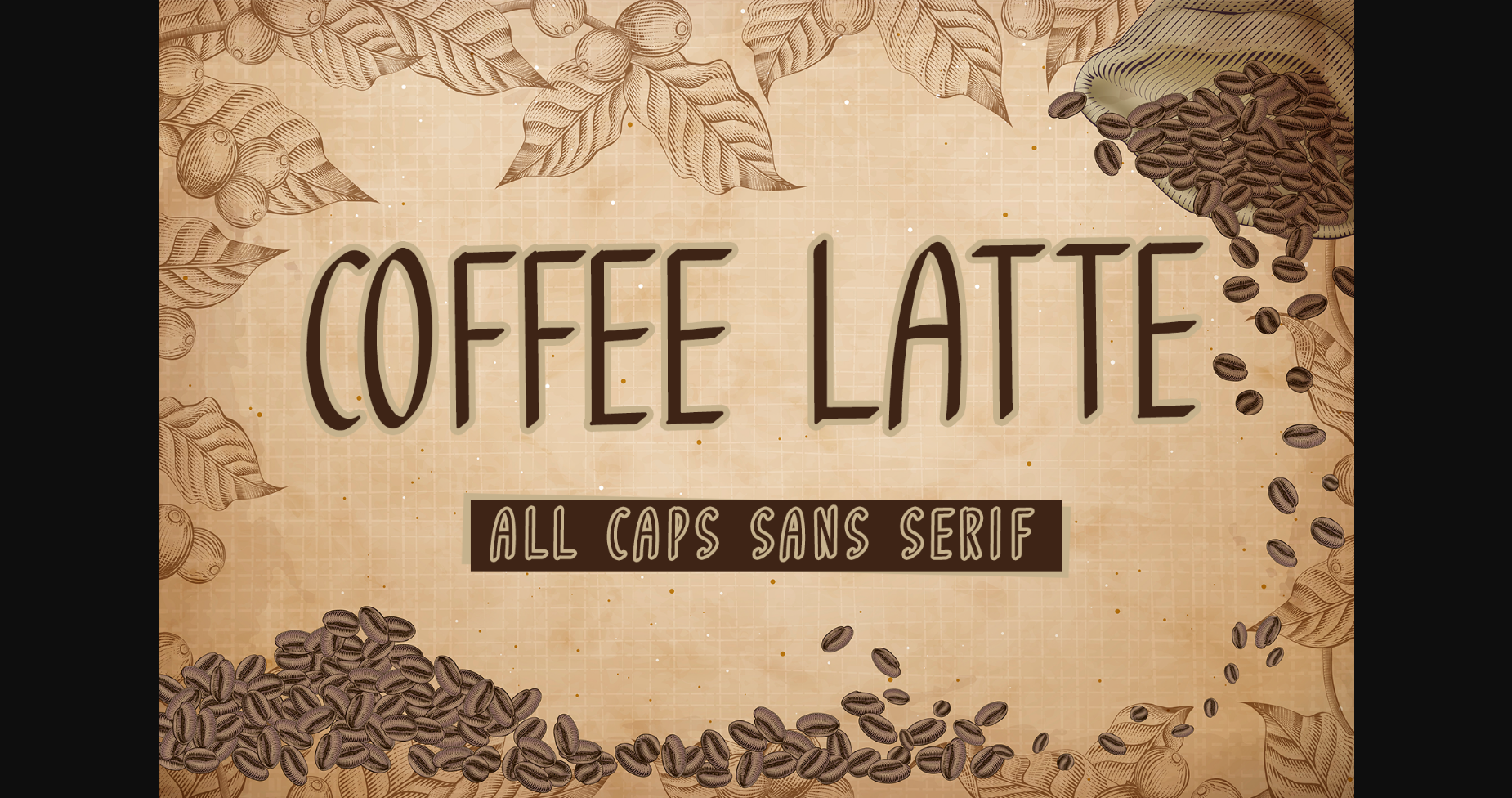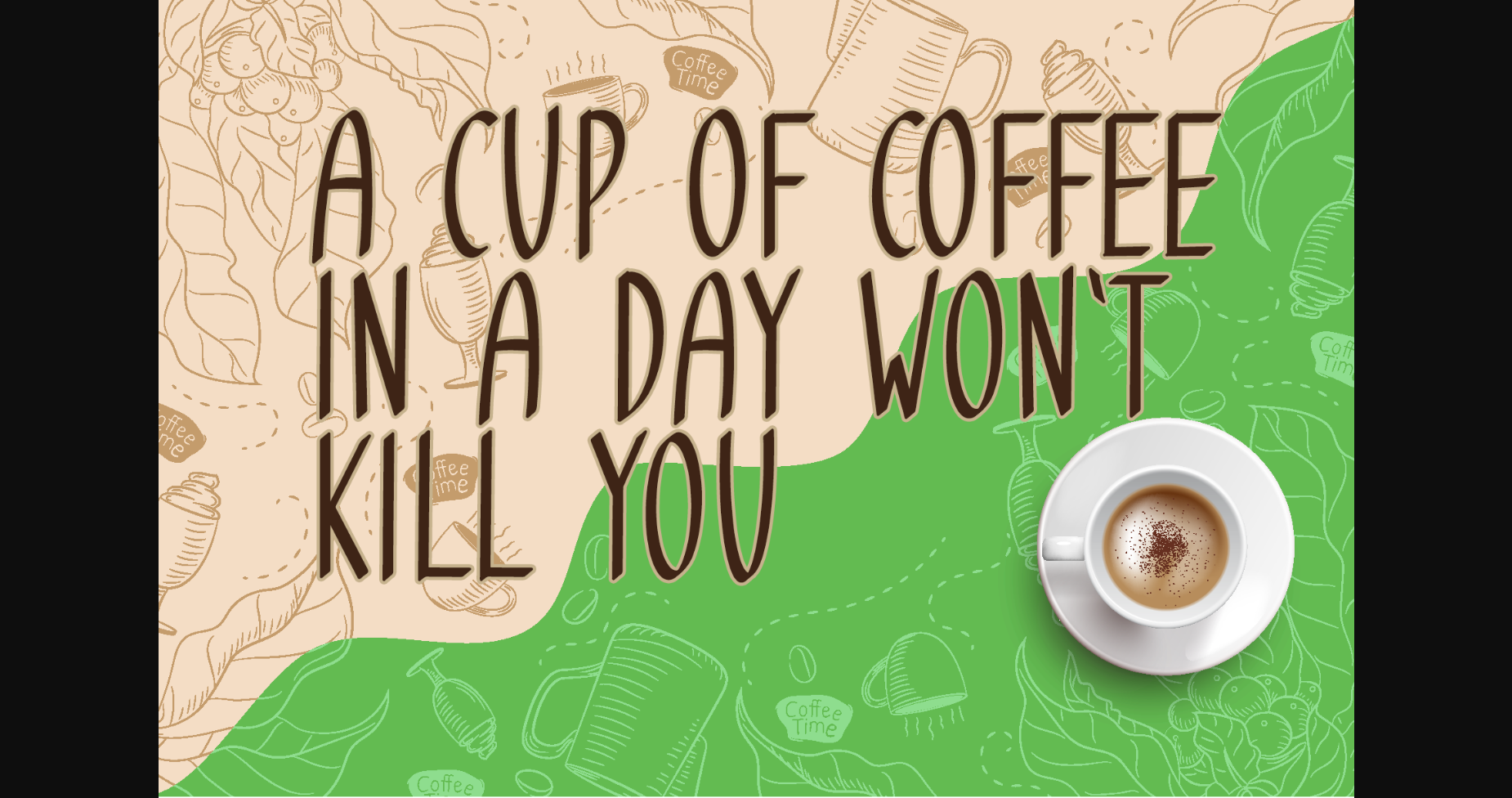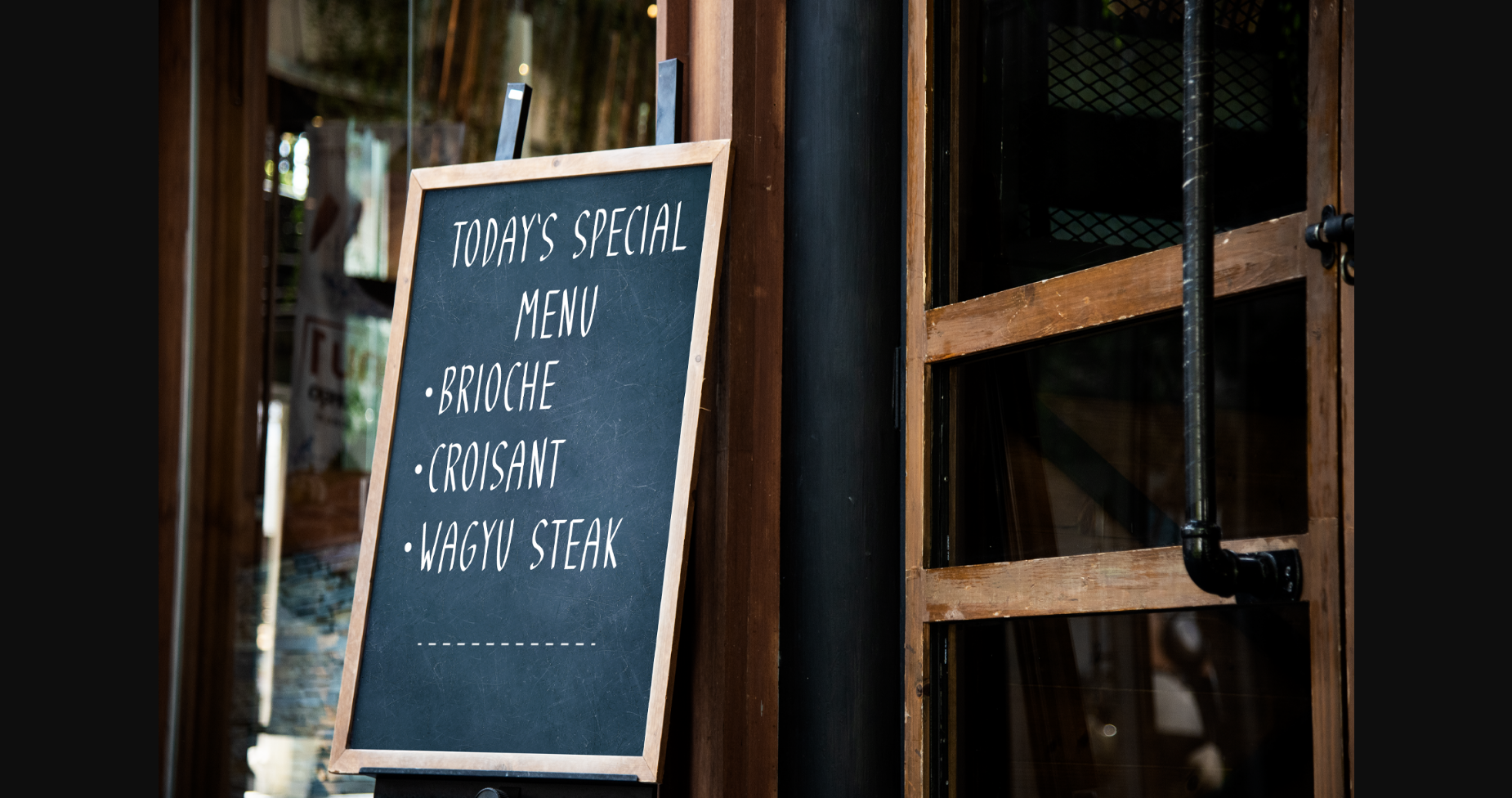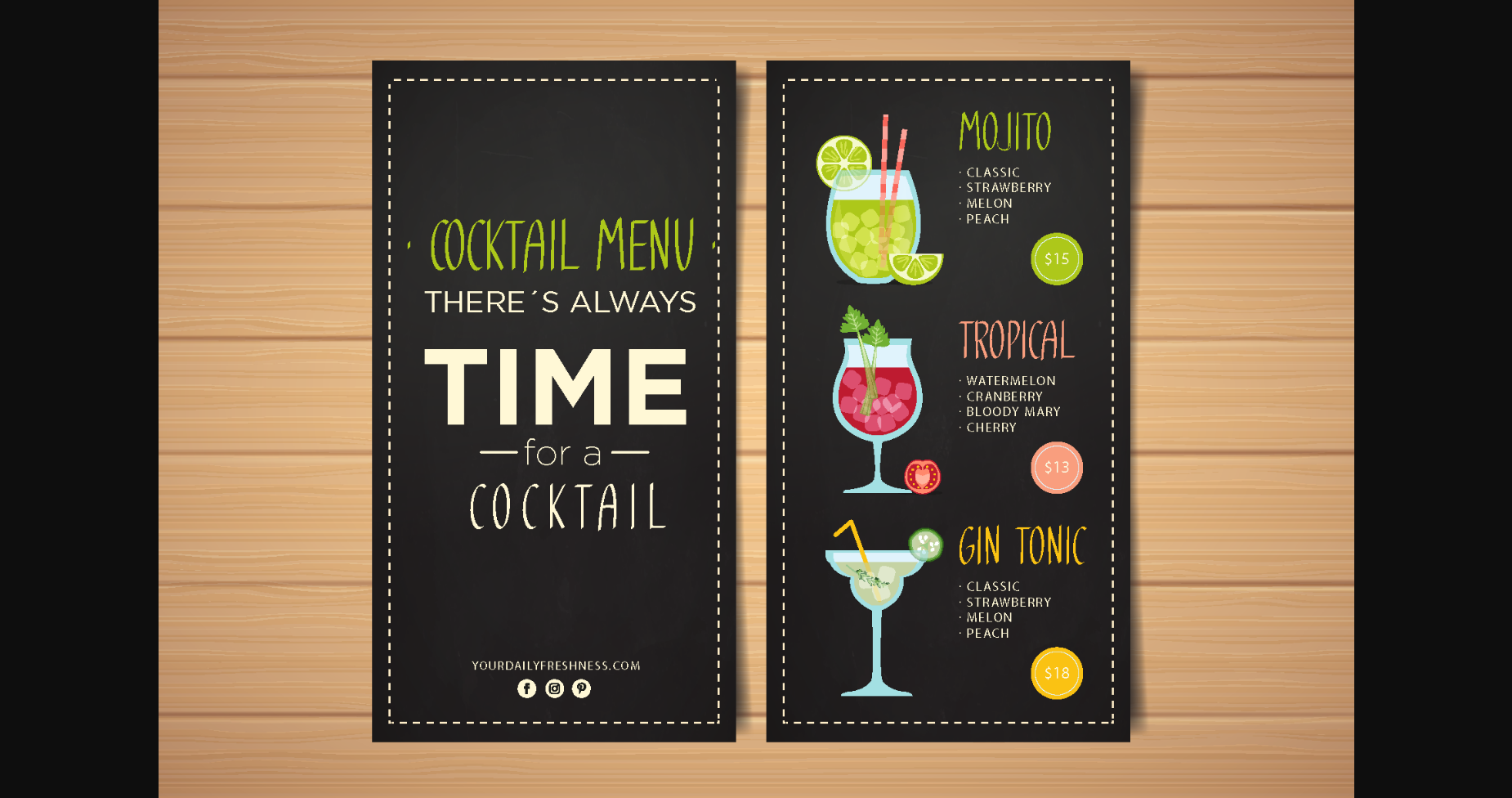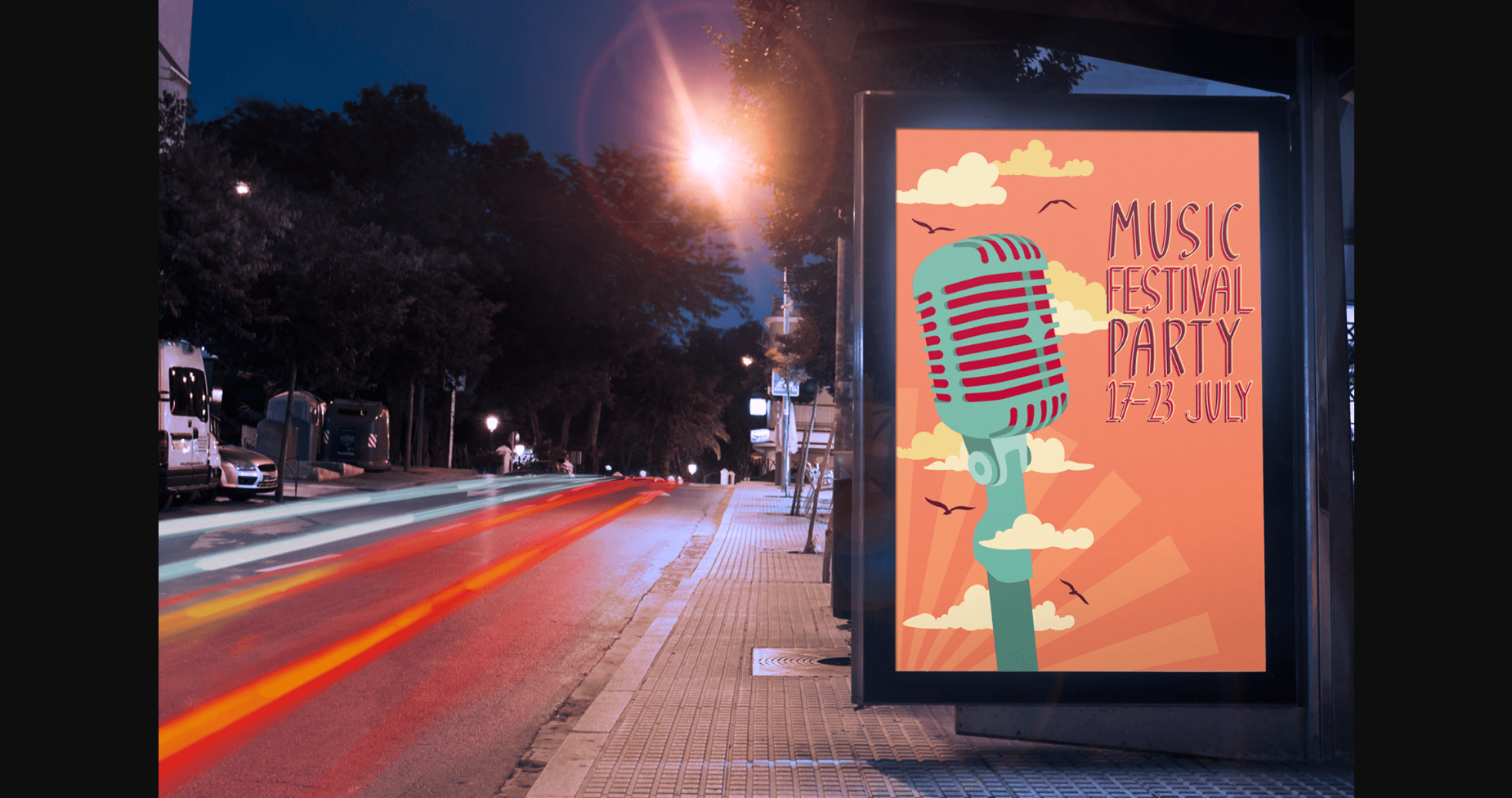
Coffee Latte Font
About Coffee Latte Font
Coffee Latte is an elegant and clean sans serif font. Add this font to your creative ideas and notice how it will make them stand out!